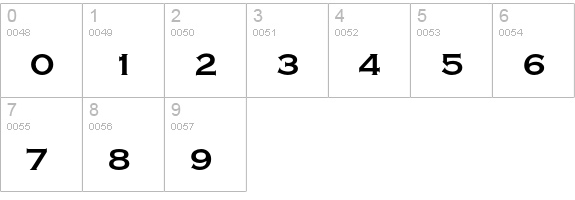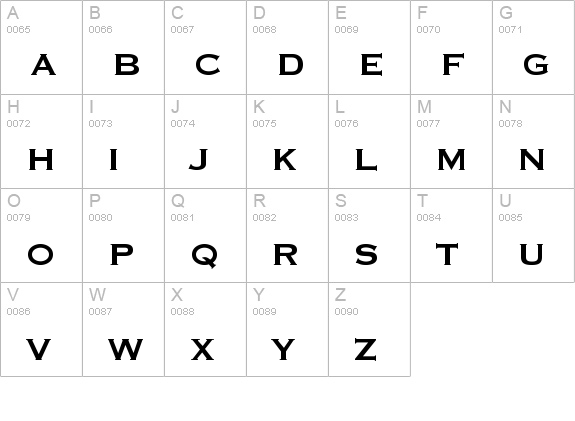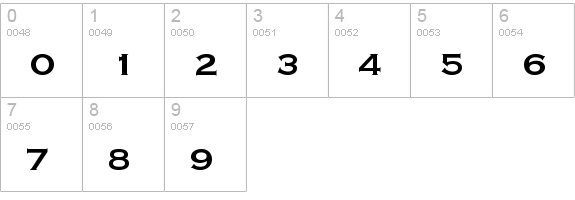
Copperplate Gothic Thirty-One BC Font Details
Copperplate Gothic Thirty-One BC is a timeless font with a classic and elegant appeal. Its sharp angular lines and bold presence make it perfect for creating eye-catching designs. This font exudes sophistication and professionalism, making it suitable for a wide range of projects, from branding to editorial design. What sets Copperplate Gothic Thirty-One BC apart is its unique blend of modernity and tradition, making it versatile and adaptable to various design styles. Whether you're looking to add a touch of sophistication to your project or aiming for a more traditional feel, this font has got you covered. The best part? Copperplate Gothic Thirty-One BC is available for free download at FontsMarket.com. This means you can easily access this stunning font to elevate your designs without breaking the bank. Don't miss out on the opportunity to enhance your projects with the timeless elegance of Copperplate Gothic Thirty-One BC. Download it today and start creating stunning designs!